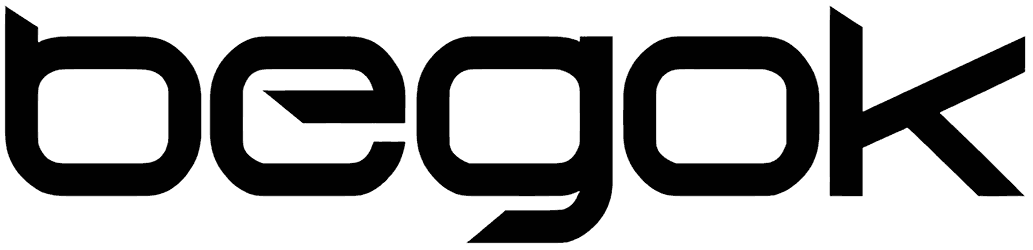
Begok Font
Begok is a lovely techno font that comes with a geometrical style and carries a vibe of modernity, momentum, futuristic, or viability. This square font can be easily matched with a wide set of graphic content, like magazines, stickers, movie posters, video game brochures, or editorial projects. Considering its limitless benefits, the lack of uppercase letters will never turn into a serious problem.